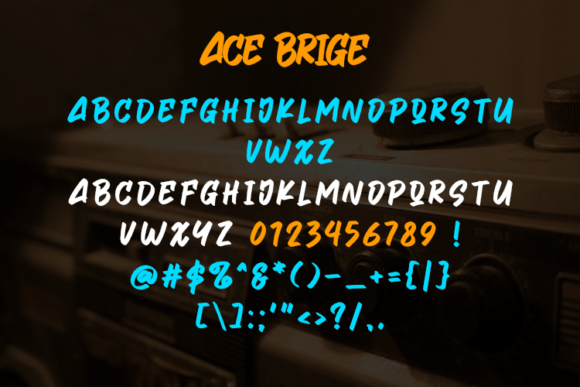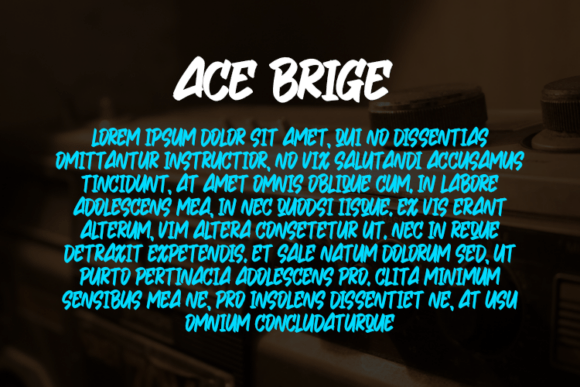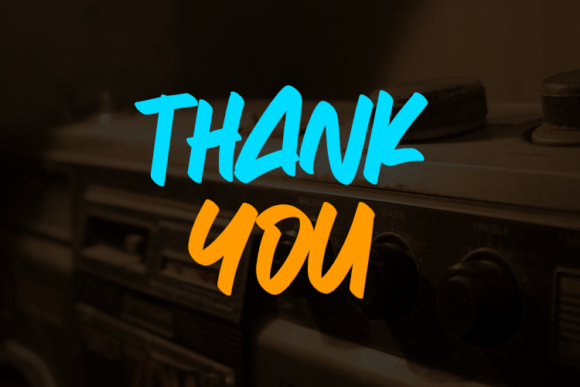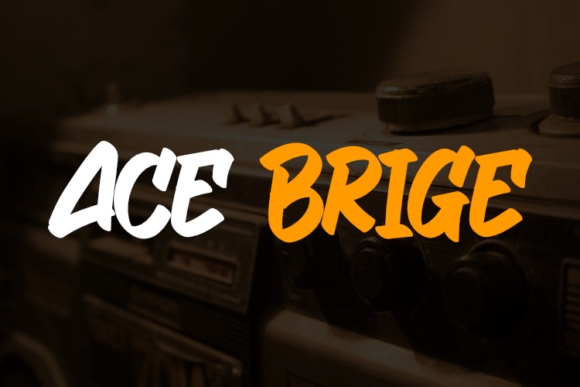
Unlock Endless Design Possibilities with Ace Bridge Font
In the realm of design, the right typography can elevate your project from ordinary to extraordinary. For fashion designers, t-shirt creators, and product designers alike, finding a font that is both versatile and stylish can be a daunting task. However, the search ends with Ace Bridge, a game-changing font that is poised to revolutionize your design process. This article will introduce you to the world of Ace Bridge, exploring its features, benefits, and the myriad of possibilities it offers to bring your design aspirations to life.
The Birth of Ace Bridge: A Font Like No Other
Ace Bridge is not just another typeface; it’s a design assistant that understands the needs of modern designers. Its creation was inspired by the desire to produce a font that could seamlessly integrate into various design projects, from high-fashion branding to casual t-shirt designs, and everything in between. With Ace Bridge, designers have at their disposal a tool that can adapt to any style or theme, making it an indispensable asset in their creative arsenal.
Breathe Life into Your Designs
The aesthetic appeal of Ace Bridge lies in its elegant and modern design. This font is crafted to add a touch of sophistication and style to any project. For fashion designers, it offers a way to create compelling brand identities and packaging that stand out. For t-shirt designers, Ace Bridge provides a versatile option that can range from playful and casual to sleek and professional, depending on the design requirements.
Endless Possibilities for Creatives
The applications of Ace Bridge are limitless. Here are a few ideas to get you started:
- Fashion Branding: Use Ace Bridge to create stunning logos, business cards, and packaging that reflect the essence of your brand.
- T-Shirt Designs: From casual slogans to sophisticated quotes, Ace Bridge can help you create t-shirt designs that resonate with your audience.
- Product Design: Elevate your product labels, brochures, and advertisements with a font that speaks quality and style.
- Digital Content: Enhance your website, social media posts, and digital newsletters with Ace Bridge, adding a professional touch to your online presence.
Why Choose Ace Bridge?
Ace Bridge is more than just a font; it’s a design solution that offers:
- Versatility: Works well across various design projects and software.
- Elegance: Adds a modern and sophisticated touch to any design.
- Efficiency: Saves time with its easy integration and adaptability.
Ace Bridge is set to become your go-to font for all your design needs. Its blend of style, versatility, and flexibility makes it an invaluable resource for designers looking to push the boundaries of their creativity. Whether you’re a professional designer or a DIY enthusiast, Ace Bridge is your next design assistant, ready to help you create stunning and impactful designs. Embrace the world of Ace Bridge today and discover a new realm of design possibilities.